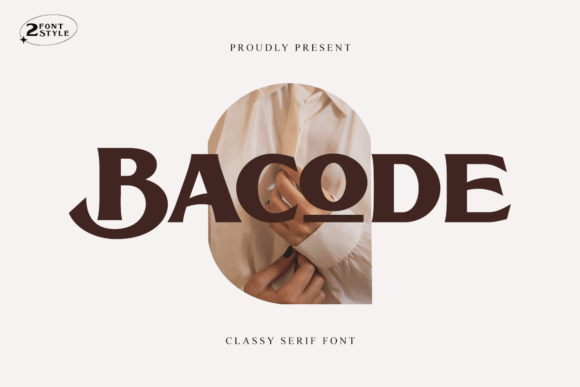
Bacode Font: Elevate Your Designs with a Cool and Unique Vintage Serif Font
In the world of typography, fonts play a crucial role in making or breaking a design. A font can either enhance or detract from the overall aesthetic of a project, making it essential to choose the right one. If you’re looking for a font that can add a touch of elegance and sophistication to your designs, look no further than Bacode Font. In this article, we’ll explore the features and benefits of Bacode, a cool and unique vintage serif font that is sure to become a valuable asset in your font library.
What is Bacode Font?
Bacode Font is a vintage serif font that boasts a distinctive and stylish appearance. Its unique blend of classic and modern elements makes it an excellent choice for a wide range of design projects, from branding and advertising to packaging and publishing. With its elegant lines, refined curves, and nostalgic feel, Bacode Font is sure to capture the attention of your audience and leave a lasting impression.
Key Features of Bacode Font
- Vintage Serif Design: Bacode Font features a classic serif design with a vintage twist, making it perfect for projects that require a touch of nostalgia and sophistication.
- Unique Character Set: The font includes a comprehensive character set, with uppercase and lowercase letters, numbers, and punctuation marks, ensuring that you have everything you need to create stunning designs.
- High-Quality Typography: Bacode Font is designed with high-quality typography in mind, featuring clean lines, precise curves, and a consistent style throughout.
- Versatile and Adaptable: This font is incredibly versatile and can be used for a wide range of design projects, from logos and branding to posters, flyers, and more.
Why Choose Bacode Font?
So, why should you choose Bacode Font for your design projects? Here are just a few reasons why this font stands out from the crowd:
- Elegance and Sophistication: Bacode Font adds a touch of elegance and sophistication to any design, making it perfect for projects that require a high-end feel.
- Unique and Memorable: The font’s unique vintage serif design ensures that your designs will stand out from the crowd and be remembered by your audience.
- Easy to Read: Despite its ornate design, Bacode Font is incredibly easy to read, making it perfect for body text and other applications where legibility is crucial.
- Time-Saving: With Bacode Font, you can create stunning designs in no time, thanks to its comprehensive character set and high-quality typography.
Design Applications for Bacode Font
Bacode Font is an incredibly versatile font that can be used for a wide range of design applications, including:
- Branding and Logo Design: Create stunning logos and branding materials with Bacode Font, perfect for businesses that want to make a lasting impression.
- Advertising and Marketing: Use Bacode Font in your advertising and marketing materials, such as posters, flyers, and brochures, to add a touch of elegance and sophistication.
- Packaging Design: Bacode Font is perfect for packaging design, adding a touch of vintage charm to product labels and packaging materials.
- Publishing and Editorial Design: Use Bacode Font in your publishing and editorial designs, such as magazines, newspapers, and books, to add a touch of classic elegance.
Tips and Tricks for Using Bacode Font
Here are a few tips and tricks for getting the most out of Bacode Font:
- Experiment with Font Sizes: Bacode Font looks great at a wide range of font sizes, so don’t be afraid to experiment and find the perfect size for your design.
- Pair with Other Fonts: Bacode Font pairs well with a wide range of other fonts, so try combining it with other fonts to create a unique and interesting design.
- Use it for Headings and Titles: Bacode Font is perfect for headings and titles, adding a touch of elegance and sophistication to your designs.
- Pay Attention to Kerning: As with any font, pay attention to kerning to ensure that your text looks professional and polished.
In conclusion, Bacode Font is a cool and unique vintage serif font that is sure to become a valuable asset in your font library. With its elegant lines, refined curves, and nostalgic feel, Bacode Font is perfect for a wide range of design projects, from branding and advertising to packaging and publishing. Whether you’re looking to add a touch of elegance and sophistication to your designs or simply want to create something truly unique and memorable, Bacode Font is the perfect choice.